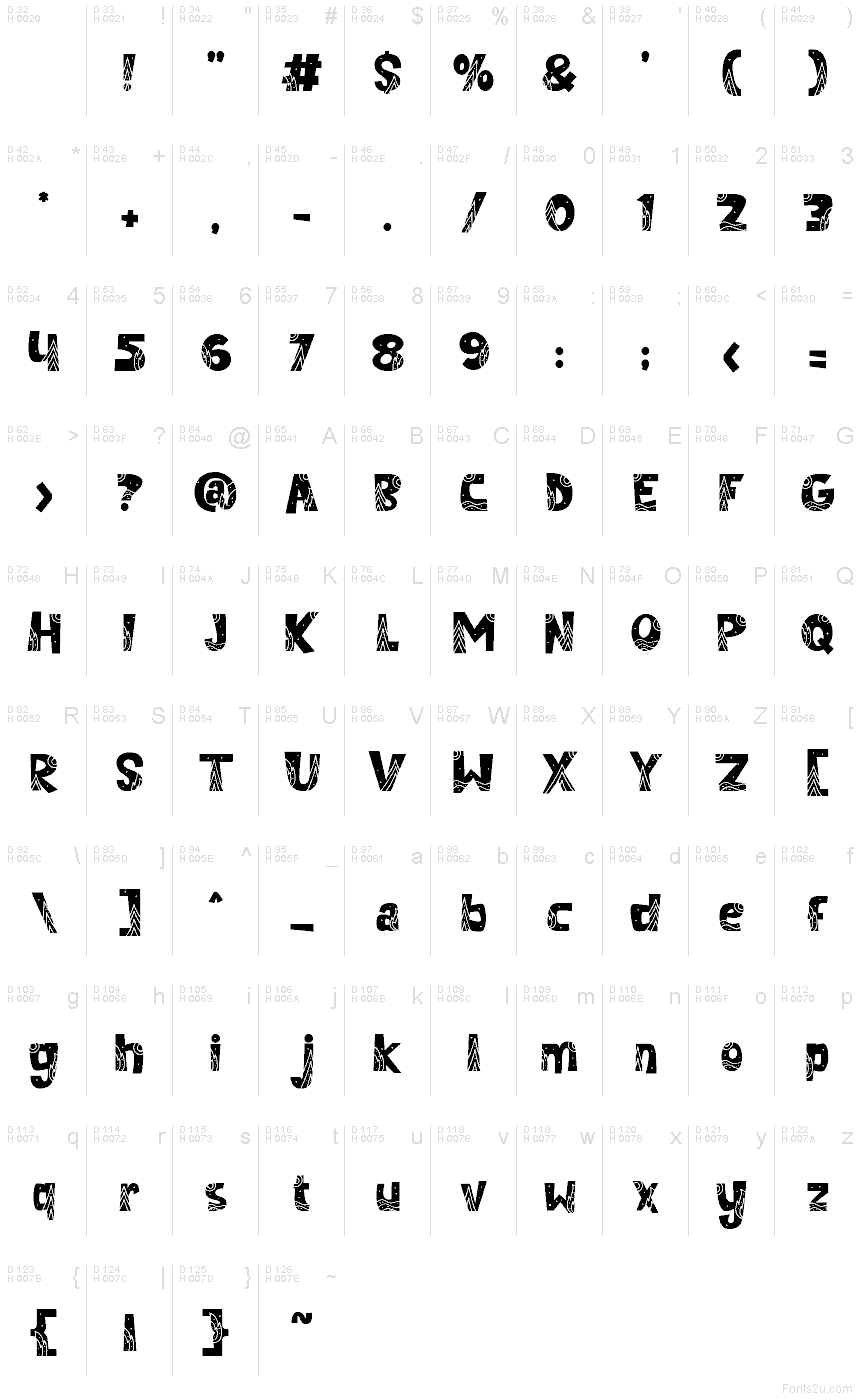
Cedar Heaven Decoration
Cedar Heaven Decoration font by PutraCetol Studio is a charming, bold decorative display font exuding artistic vibes. Each letter of Cedar Heaven is equipped with organic shapes and floral motifs that add to its unique look. Perfect for various design needs, this offering is free-to-use by all interested graphic designers.
With intricate detailing and nature-inspired aesthetics, Cedar Heaven becomes your go-to option every time you the following project types: wedding invitations or cards; greeting & thank you cards; logo designs; posters & flyers; book covers; packaging boxes or bags; branding names; labels & pins among many others.